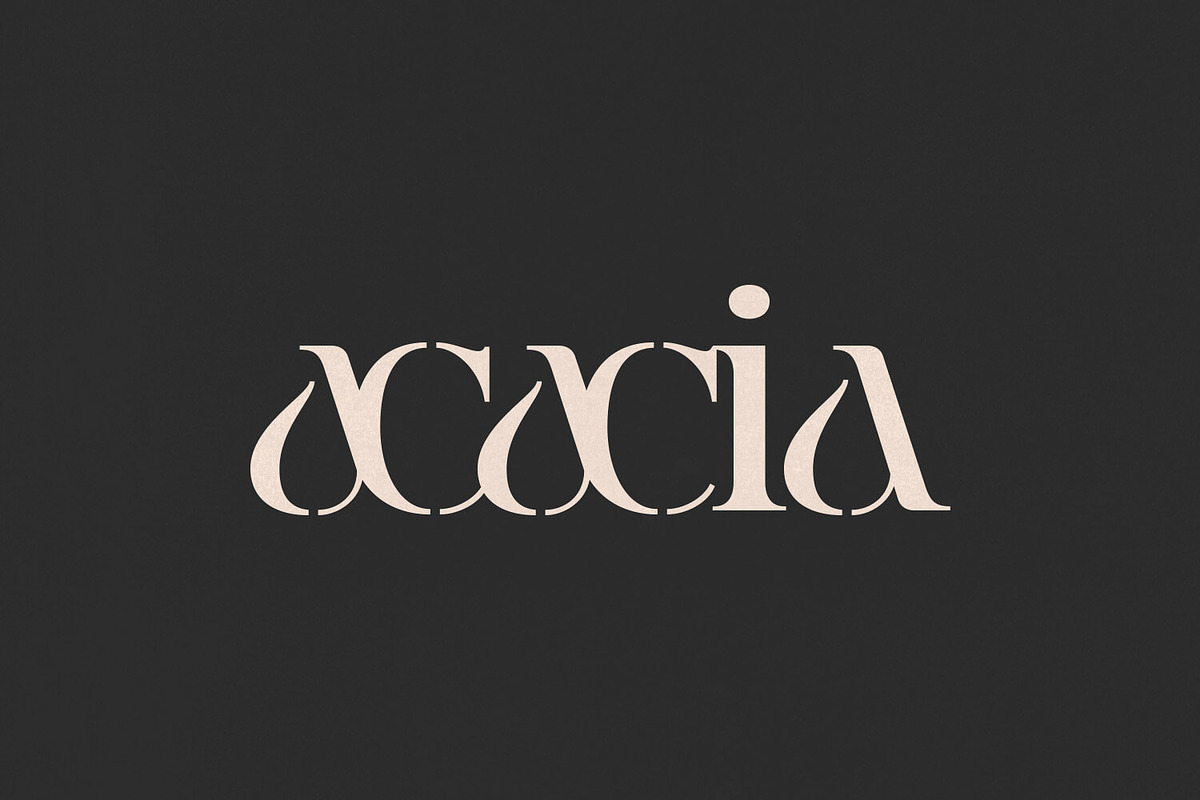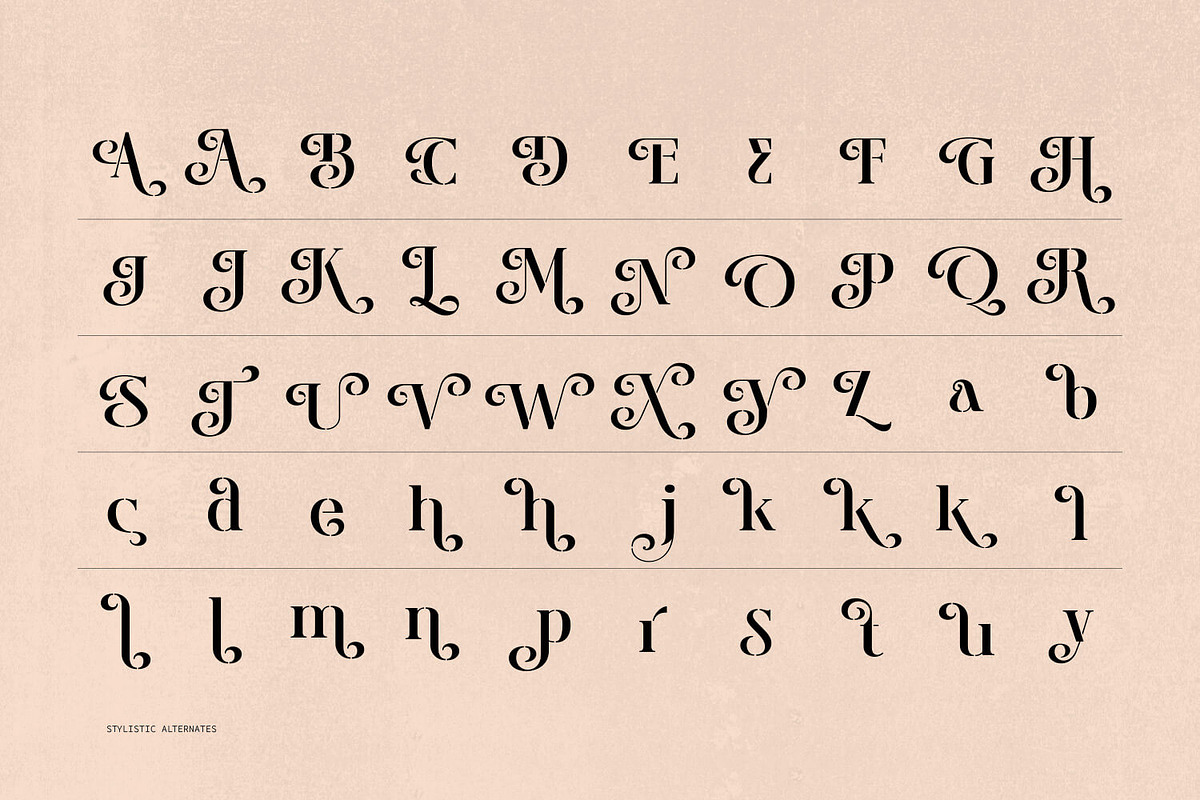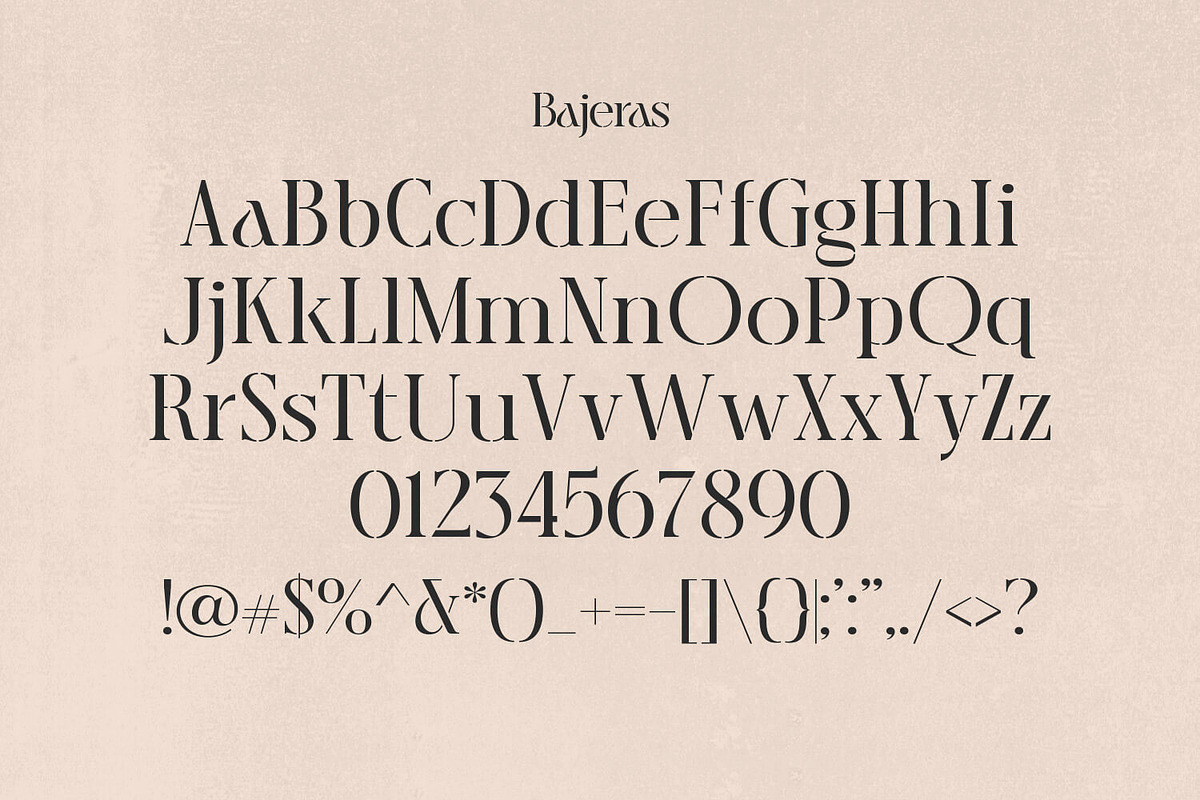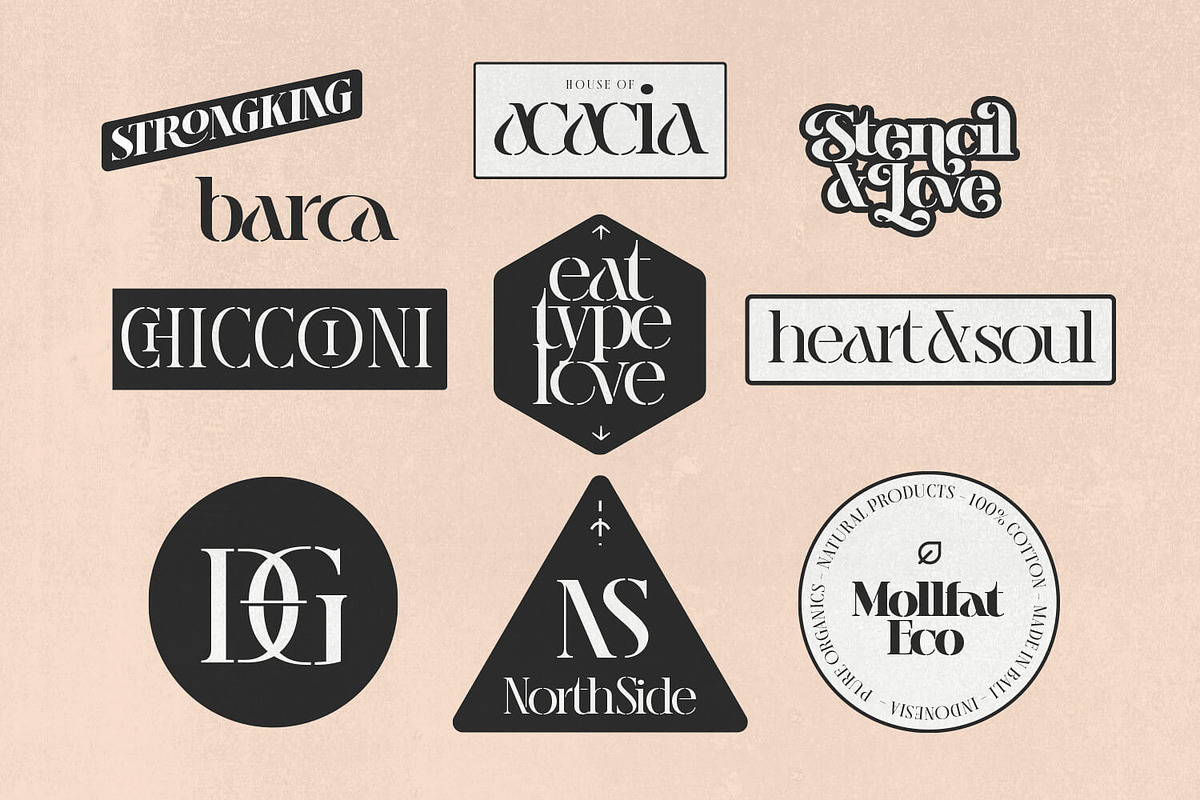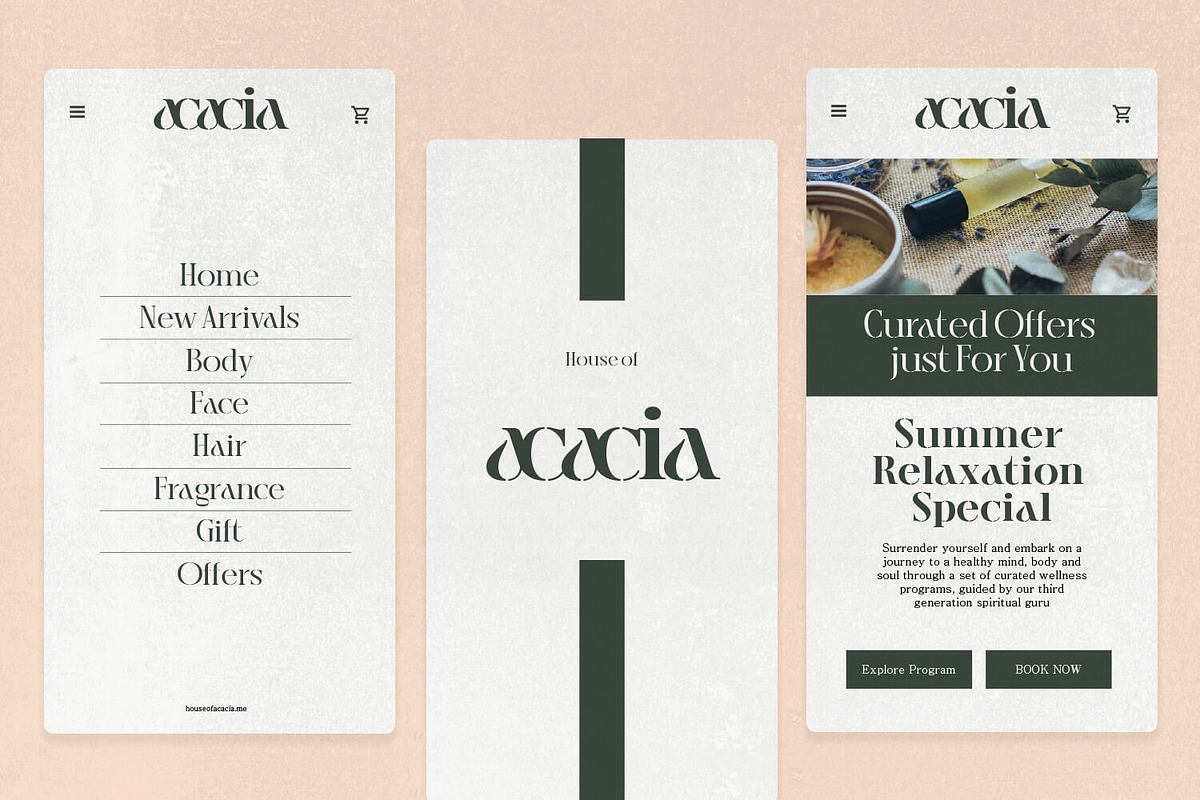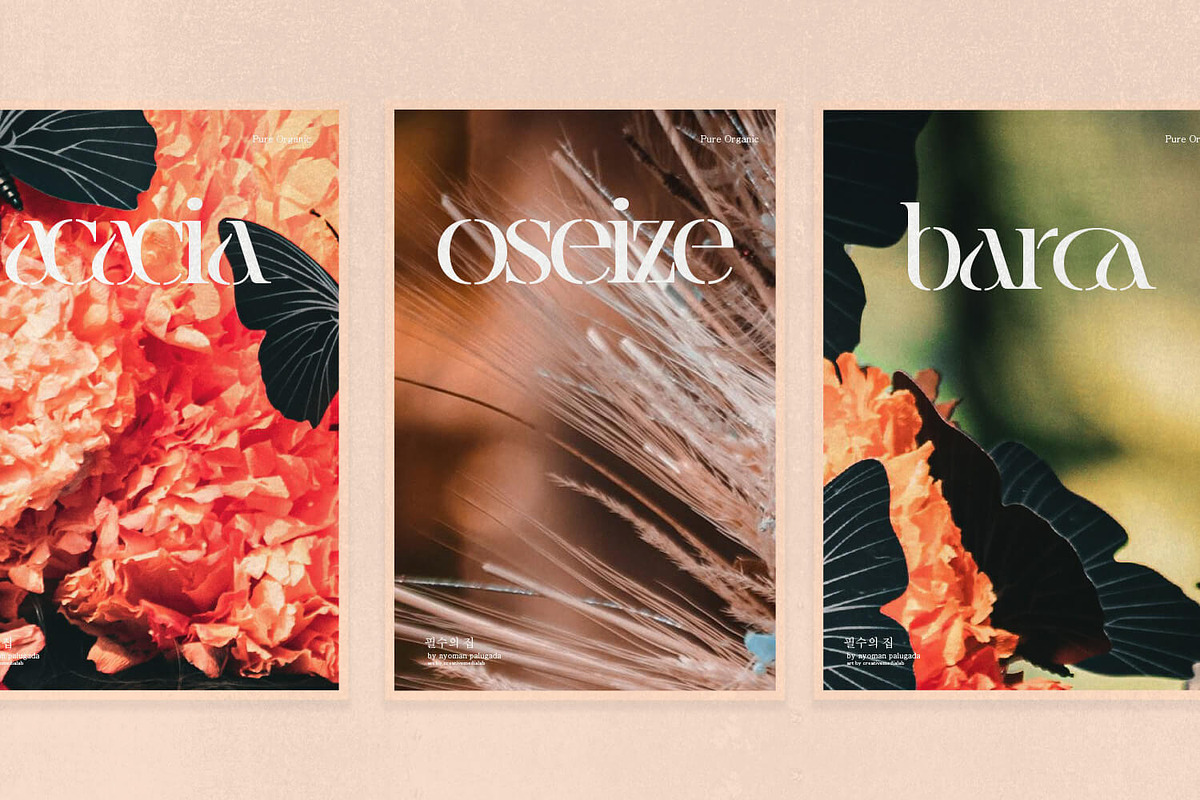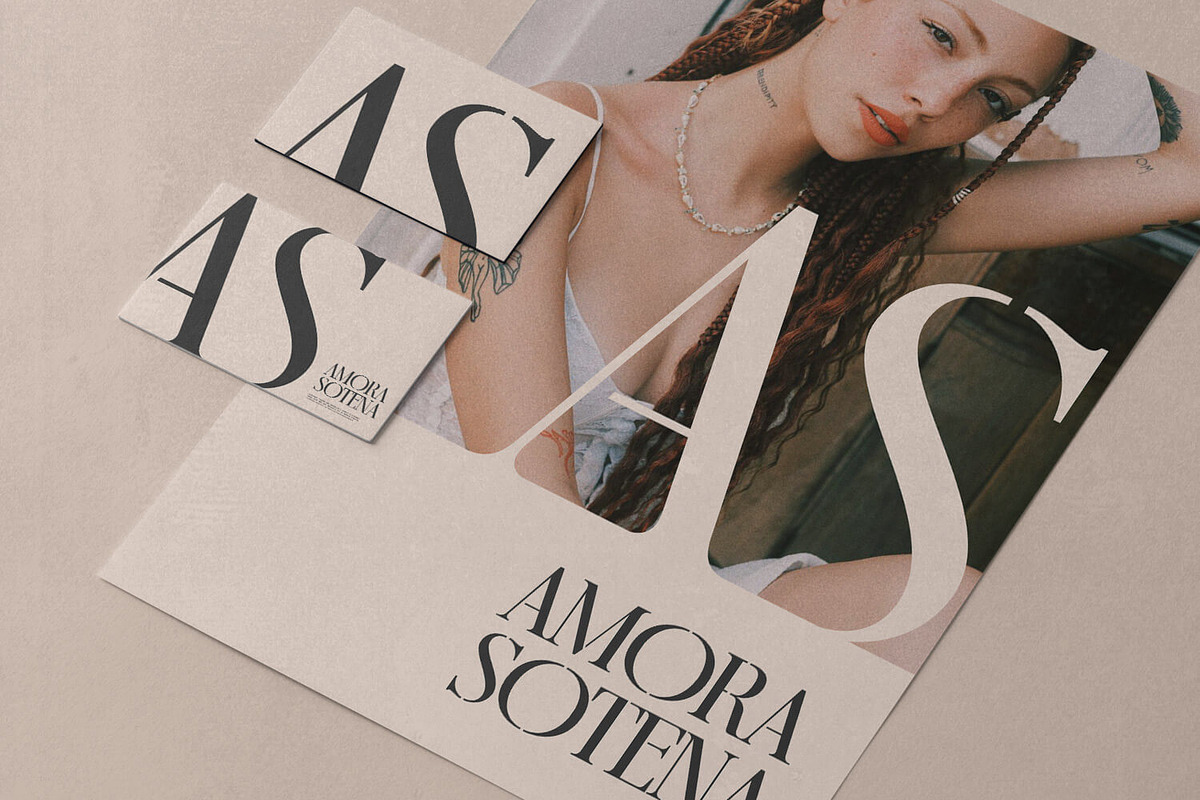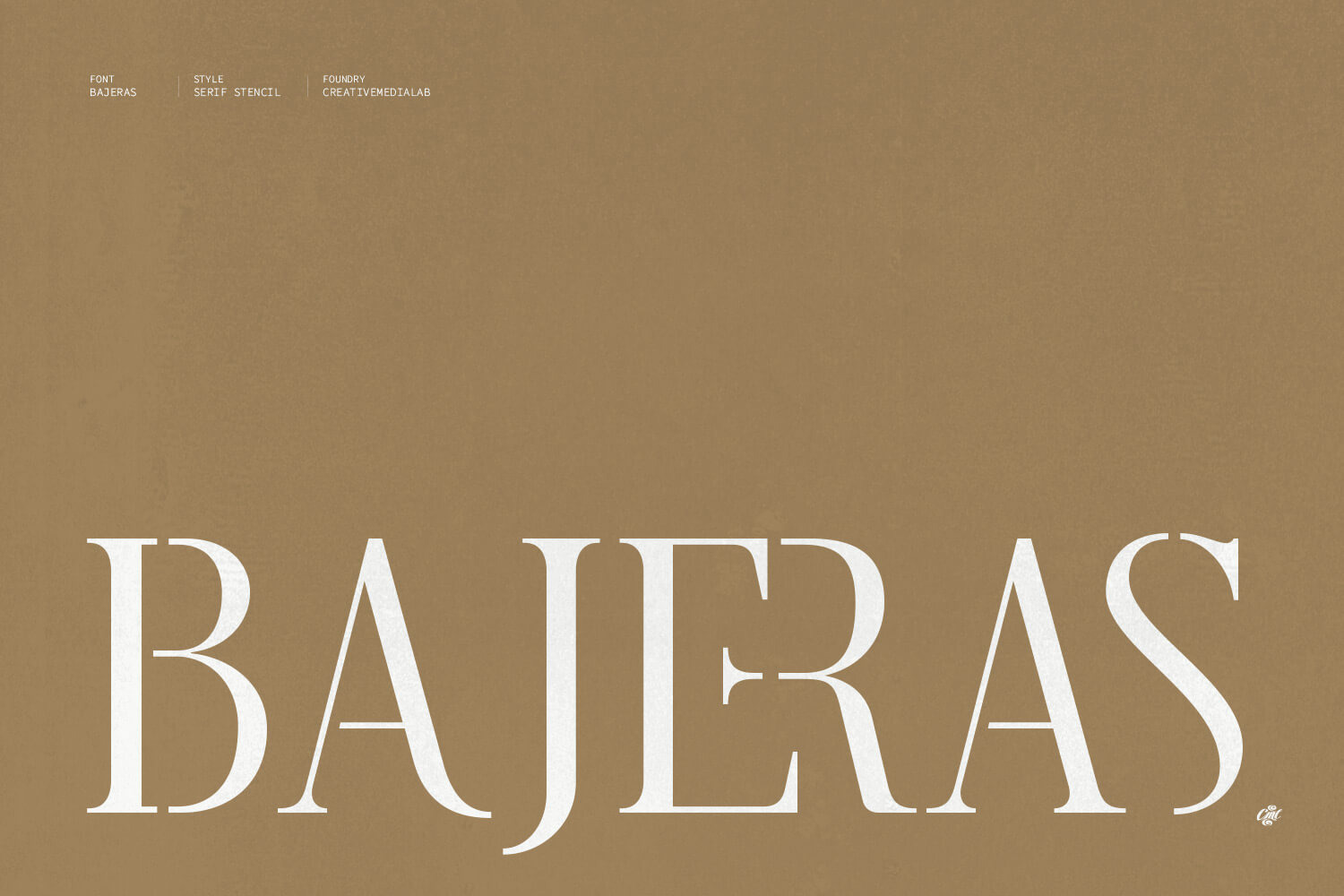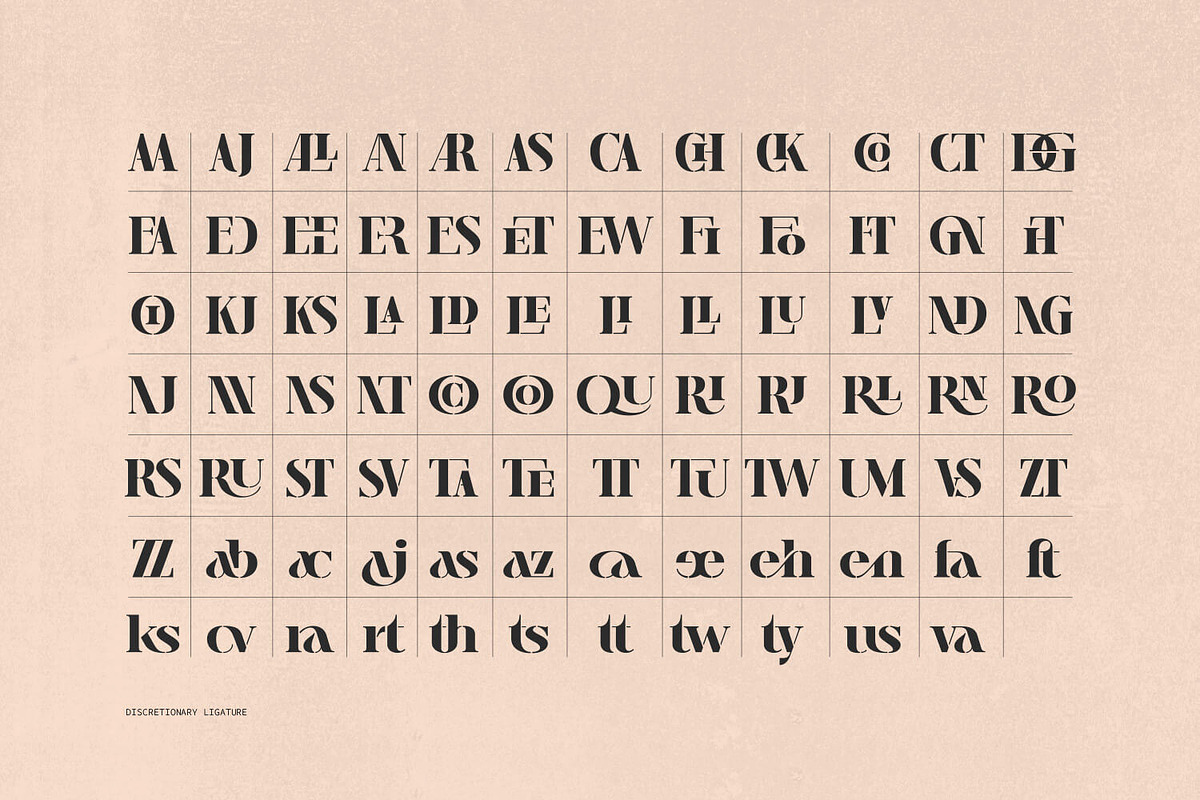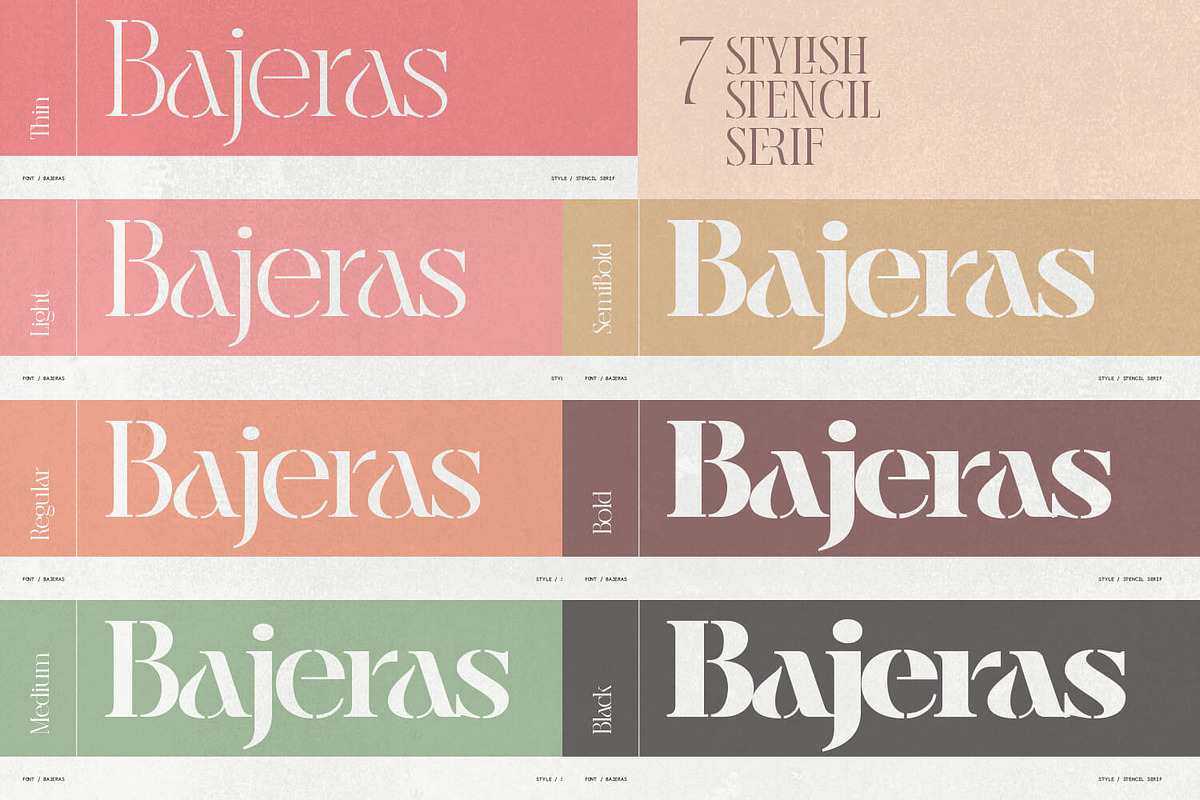
Bajeras - Serif stencil font family
Introducing Bajeras: a stylish Stencil typeface. Inspired by Stencil letters often used by the military to make signs by spraying paint. Stencil typefaces are widely used in modern fashion designs today.
Here we combine a bold style by giving simple curves to the alternate letters so that Bajeras looks elegant yet classic with many ligatures and alternates. This typeface includes seven thicknesses, ranging from thin to black.
Bajeras is an ideal brand, with elegant design, classy or luxury brands, logos, fashion, and more.